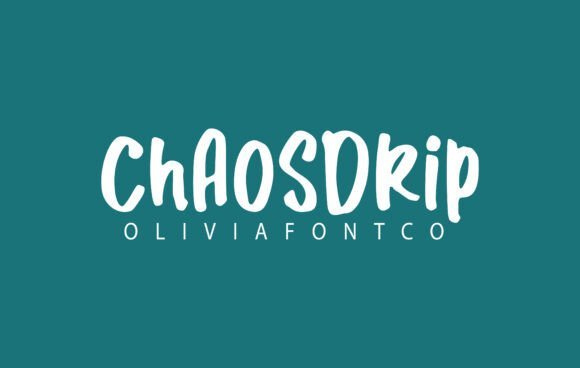
Unlock the Secret to Timeless Creativity with Chaosdrip Font
Have you ever sat at your desk, staring at a blank page, and suddenly, a spark of inspiration strikes? The words start flowing, and your creative vision begins to take shape. It’s in these moments that we need the perfect tool to bring our ideas to life. That’s where the Chaosdrip Font comes in – a beautiful, authentic handwritten font that adds a touch of romance to any design.
As a designer, you understand the importance of selecting the right font to convey your message and capture your audience’s attention. That’s why the Chaosdrip Font is a valuable addition to your creative arsenal. Its legibility and versatility make it perfect for a wide range of designs, from magazine headlines to social media graphics and wedding invitations.
Chaosdrip Font Key Features
- Unique Characteristics: Chaosdrip Font features a distinctive, hand-drawn design with intricate details and a distressed texture, giving it a unique and eye-catching appearance.
- Font Styles: The font family includes 6 different font styles: Regular, Italic, Bold, Bold Italic, Light, and Light Italic, offering a range of options for designers to choose from.
Chaosdrip Font Review
I’ve had the chance to work with the Chaosdrip font, and overall, it’s been a mixed bag for me. Here are my thoughts.
- The font’s unique blend of futuristic and distressed elements gives it a lot of character. It’s perfect for projects that need a bold, edgy feel.
- The font is highly customizable, with a wide range of styles and weights available. This makes it easy to adapt to different design needs.
- The font’s high x-height makes it easy to read, even at smaller sizes. This is a major plus for anyone working on projects where readability is a concern.
- The font’s irregular letterforms can make it difficult to use for projects where a clean, consistent look is necessary.
- The font’s bold weights can be a bit too overpowering, making it difficult to balance with other design elements.
- The font’s customizability can also be a bit overwhelming, with too many options to choose from. This can make it difficult to decide on a final design.
Overall, I think the Chaosdrip font is a great choice for projects that need a bold, edgy feel. However, it may not be the best choice for projects where a clean, consistent look is necessary. With a bit of practice and patience, it’s definitely worth checking out.
For maximum impact, use Chaosdrip Font for headings and titles to add a touch of whimsy and personality to your designs.
- Graphic design and visual identity
- Typography-based art and illustrations
Chaosdrip Font is a popular font known for its unique, handwritten style. However, there are several alternatives available that offer similar characteristics and can be used in various design contexts.
Great Vibes is a modern script font that features elegant, flowing lines and a relaxed feel. It is ideal for use in logos, branding materials, and advertising campaigns where a friendly, approachable tone is desired.
Comparison to Chaosdrip Font: Great Vibes has a more refined and polished appearance compared to Chaosdrip Font, which has a more rough and textured feel. Great Vibes is also more versatile and can be used in a wider range of design applications.